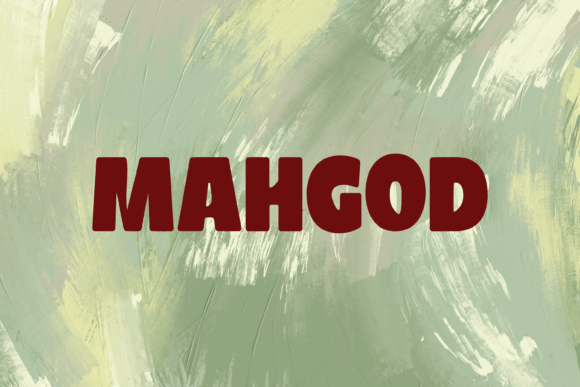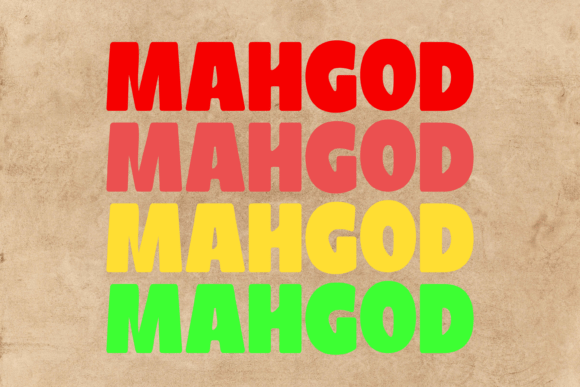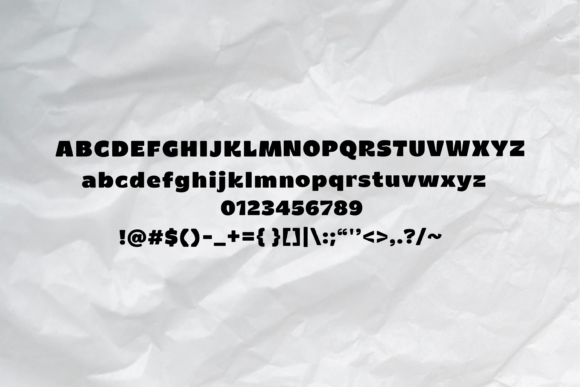
Introduction to Mahgod Font
Pound a confident, high-impact presence straight into your canvas with Mahgod, an ultra-heavy bold display font built to command absolute attention.
Striking a powerful balance between solid industrial blocks and smooth geometric curves, this chunky typeface features extra-thick sans-serif letterforms layered with a subtle, organic visual bounce Its plump weights and slightly irregular baseline curves give headlines a friendly, human warmth while retaining an undeniable sense of modern authority.